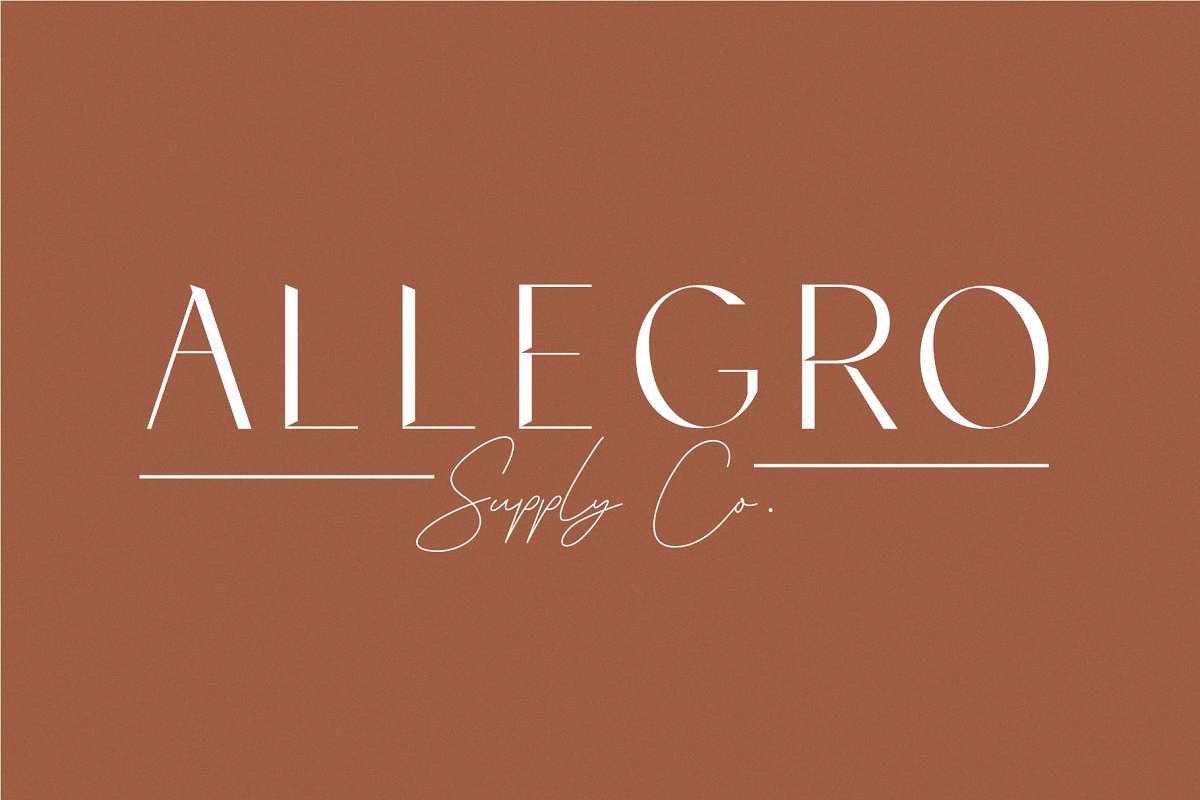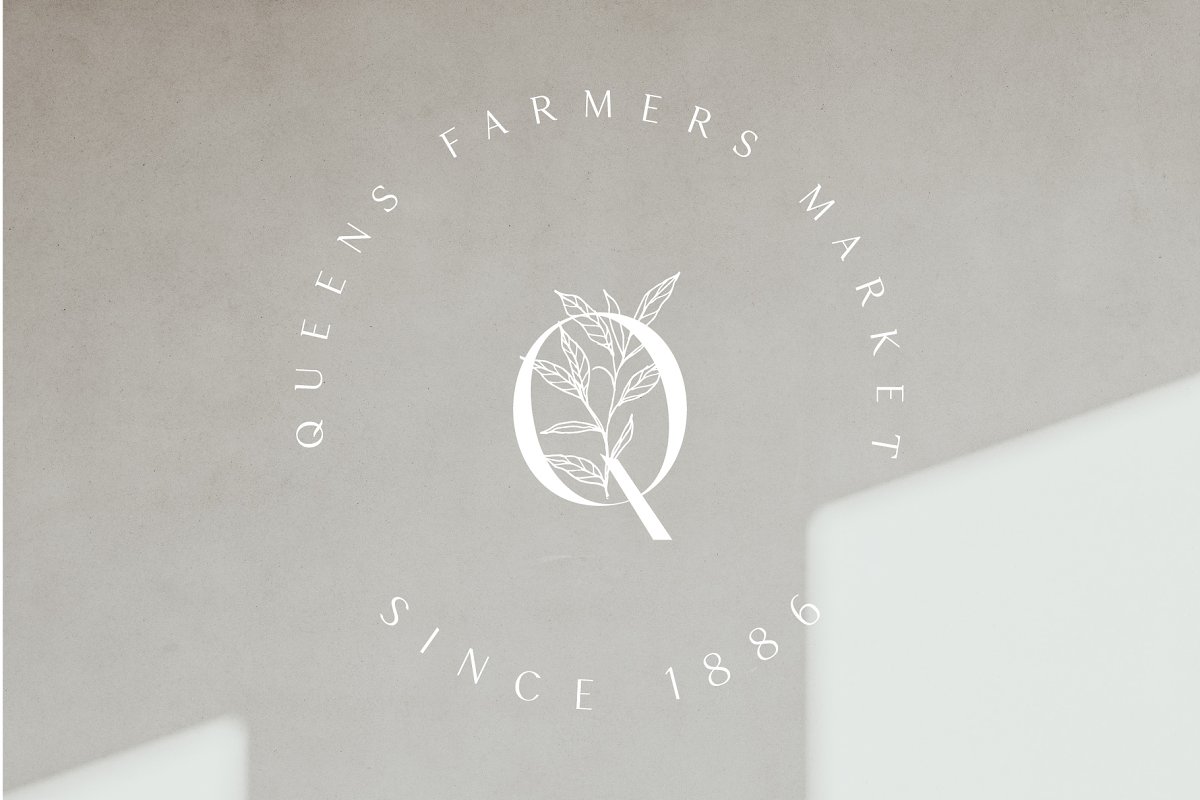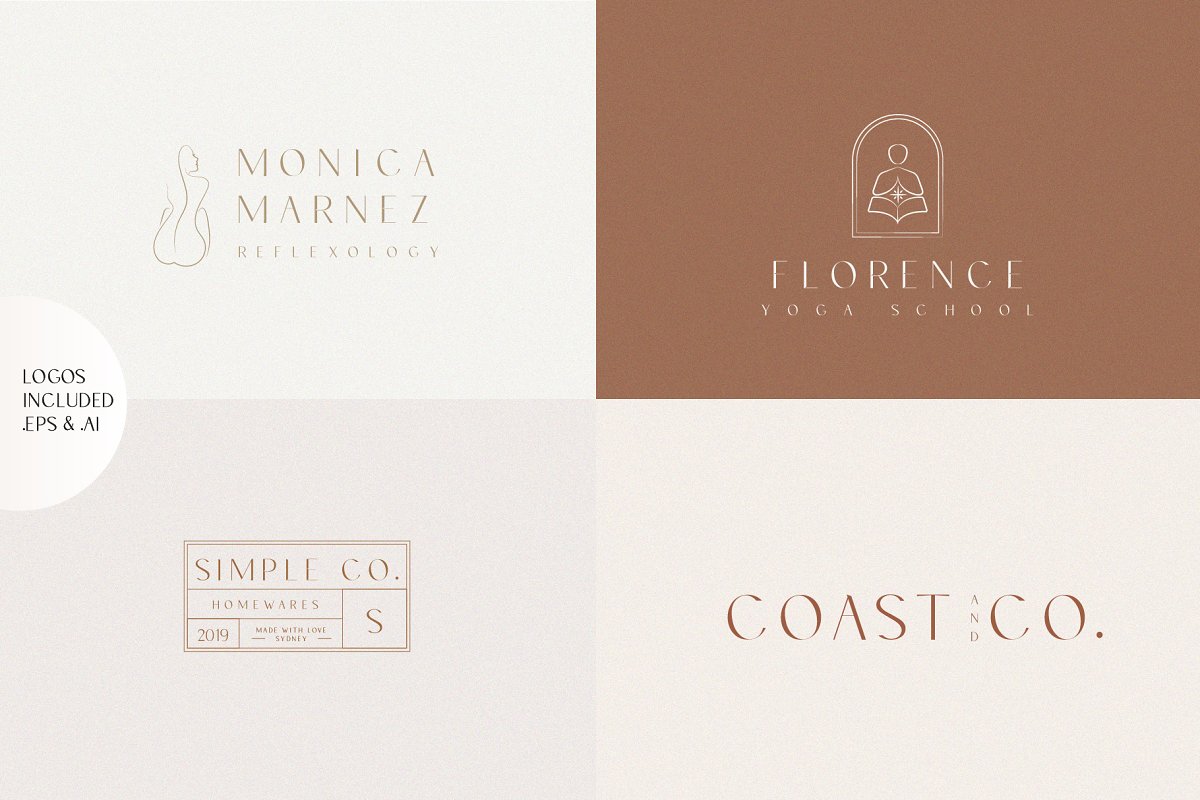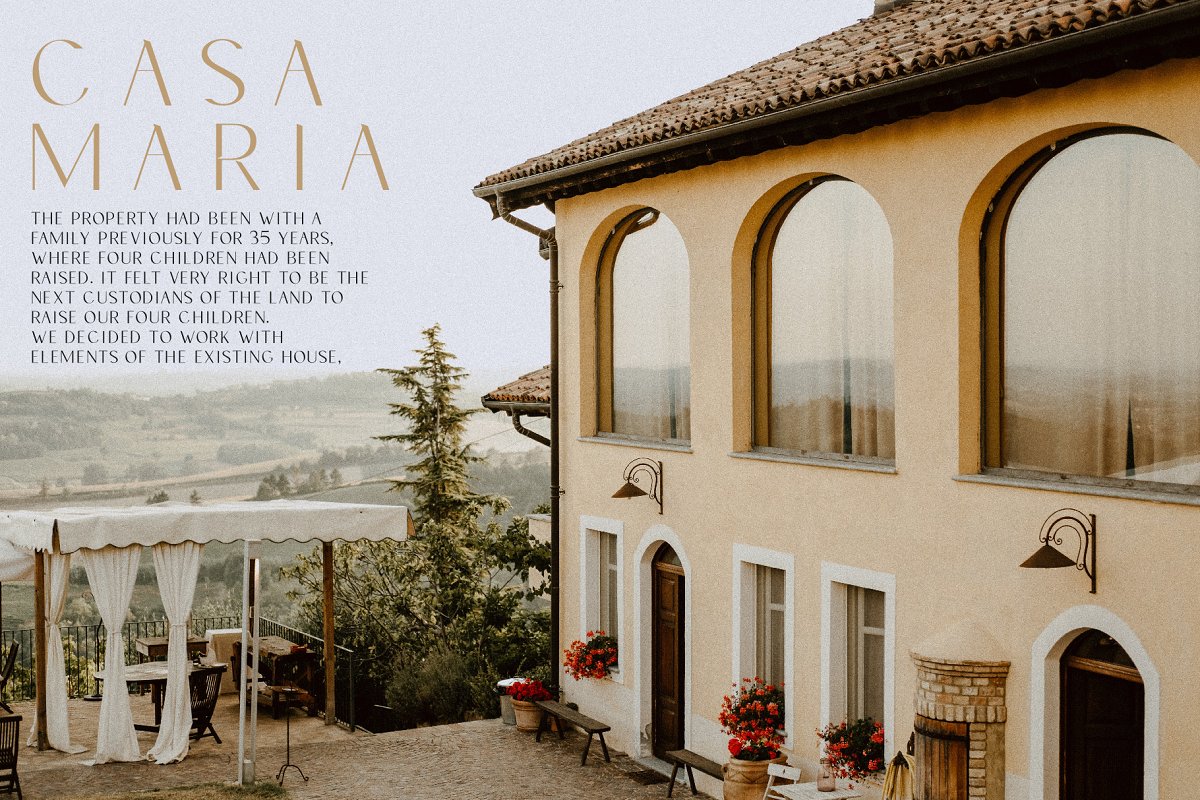
About the Coast Co and Logos Font
A modern Serif Font with extra logos thrown in! Coast is a unique typeface blending those old Spanish villa vibes with modern minimalist design, It’s unique cut ins &curves make it a memorable font for stylish logos, mastheads and pull quotes, It comes with 4 Logos in , Ai or , EPS files that match the font perfectly, It pairs nicely with all script fonts like Queenstown Signature Font seen above